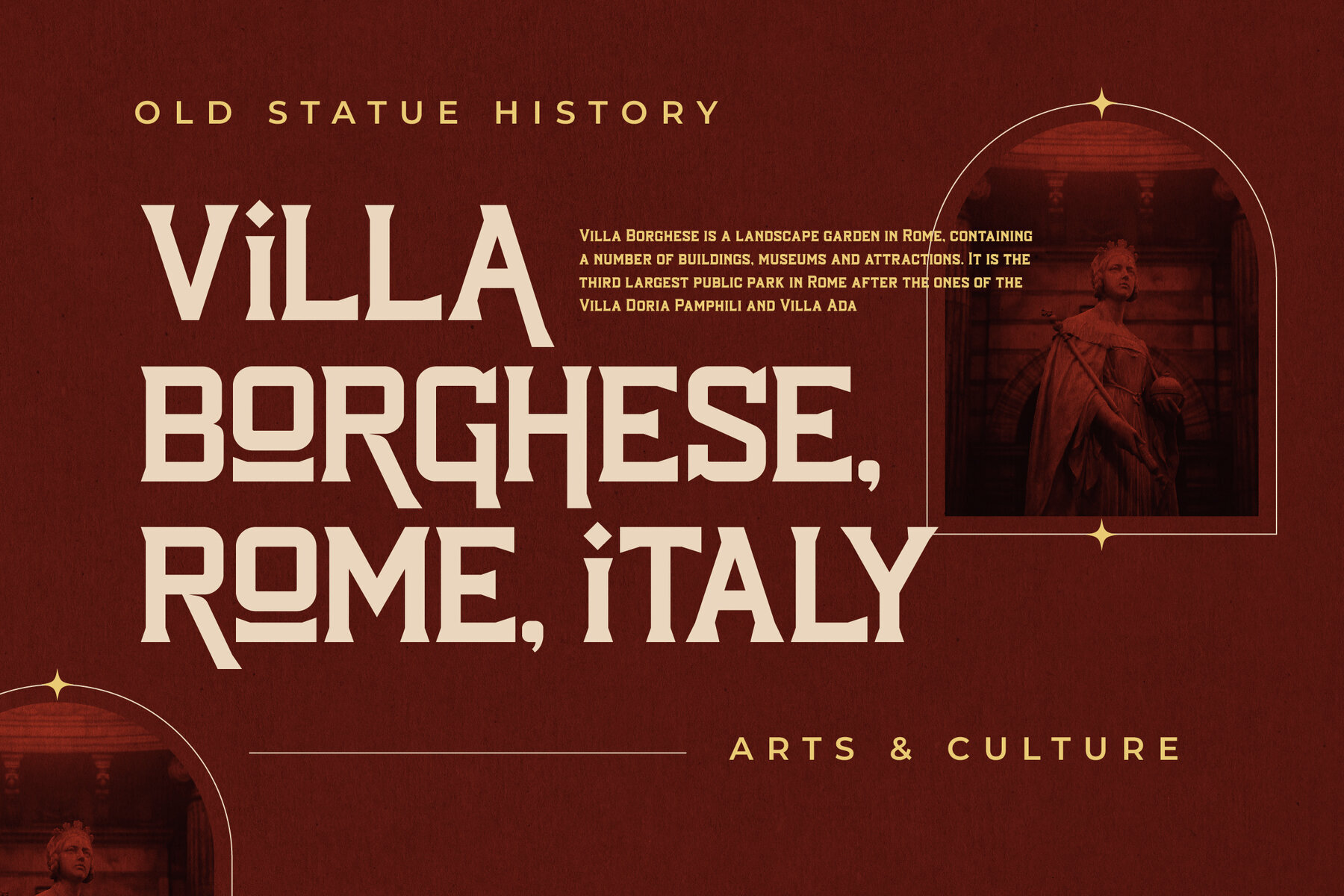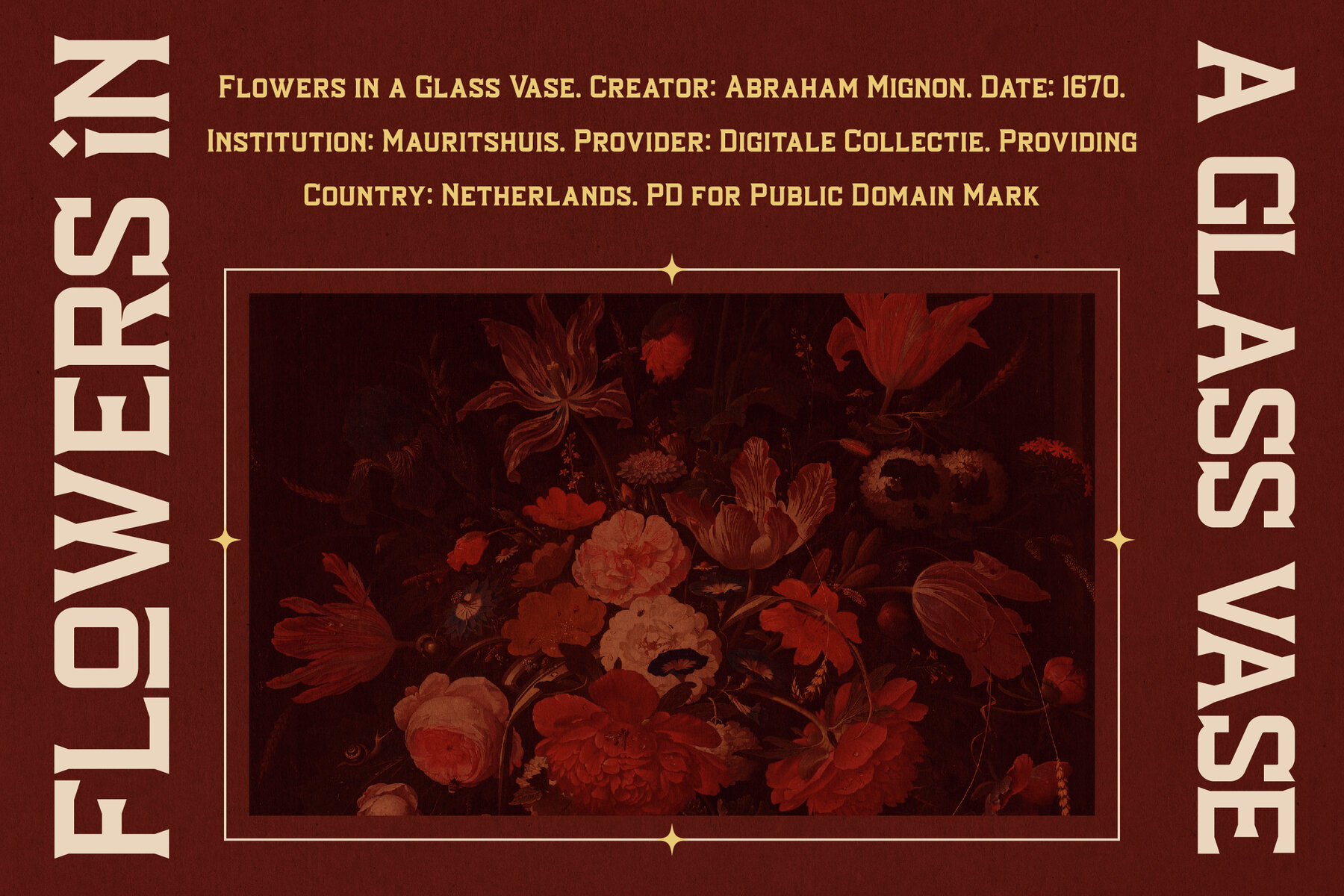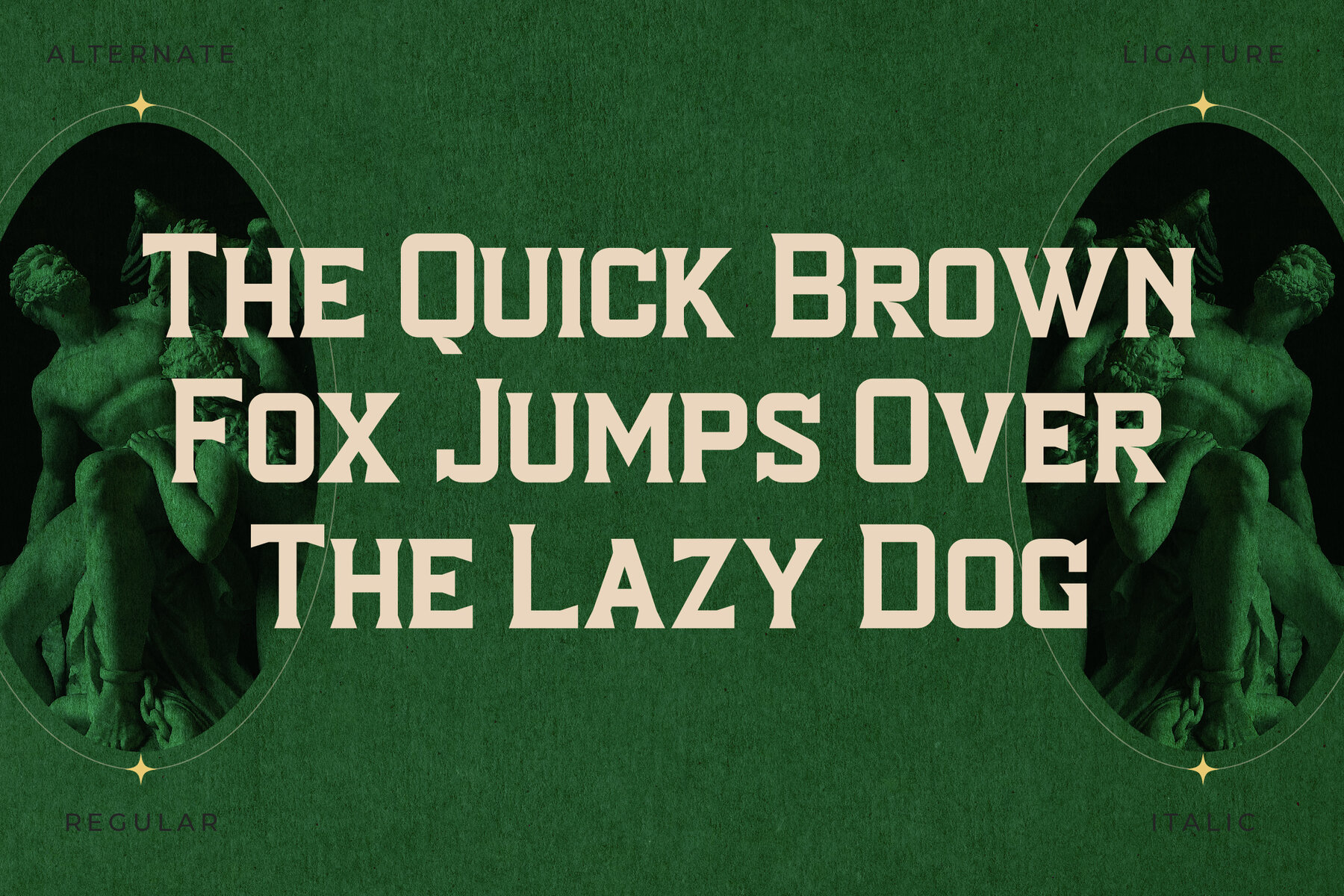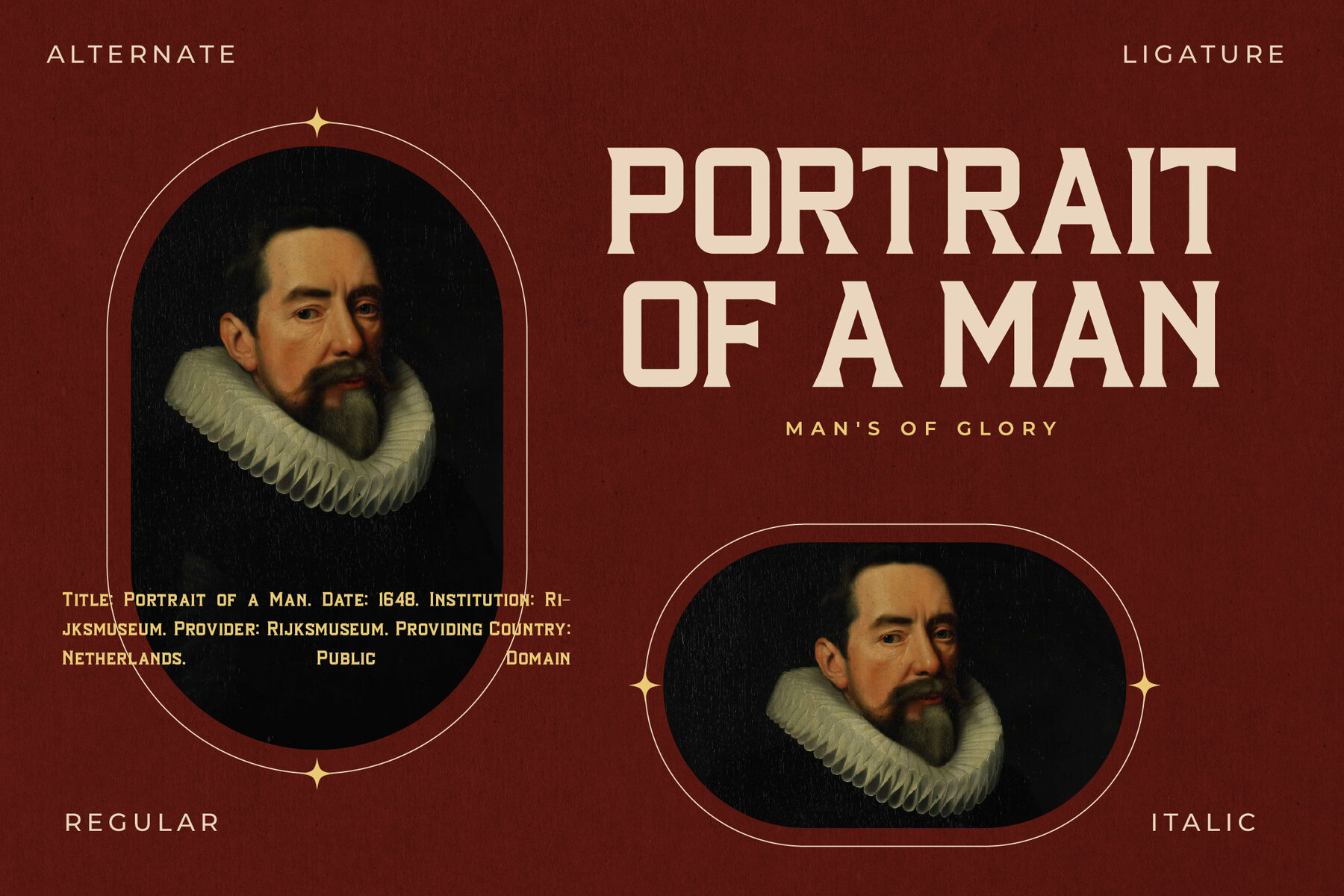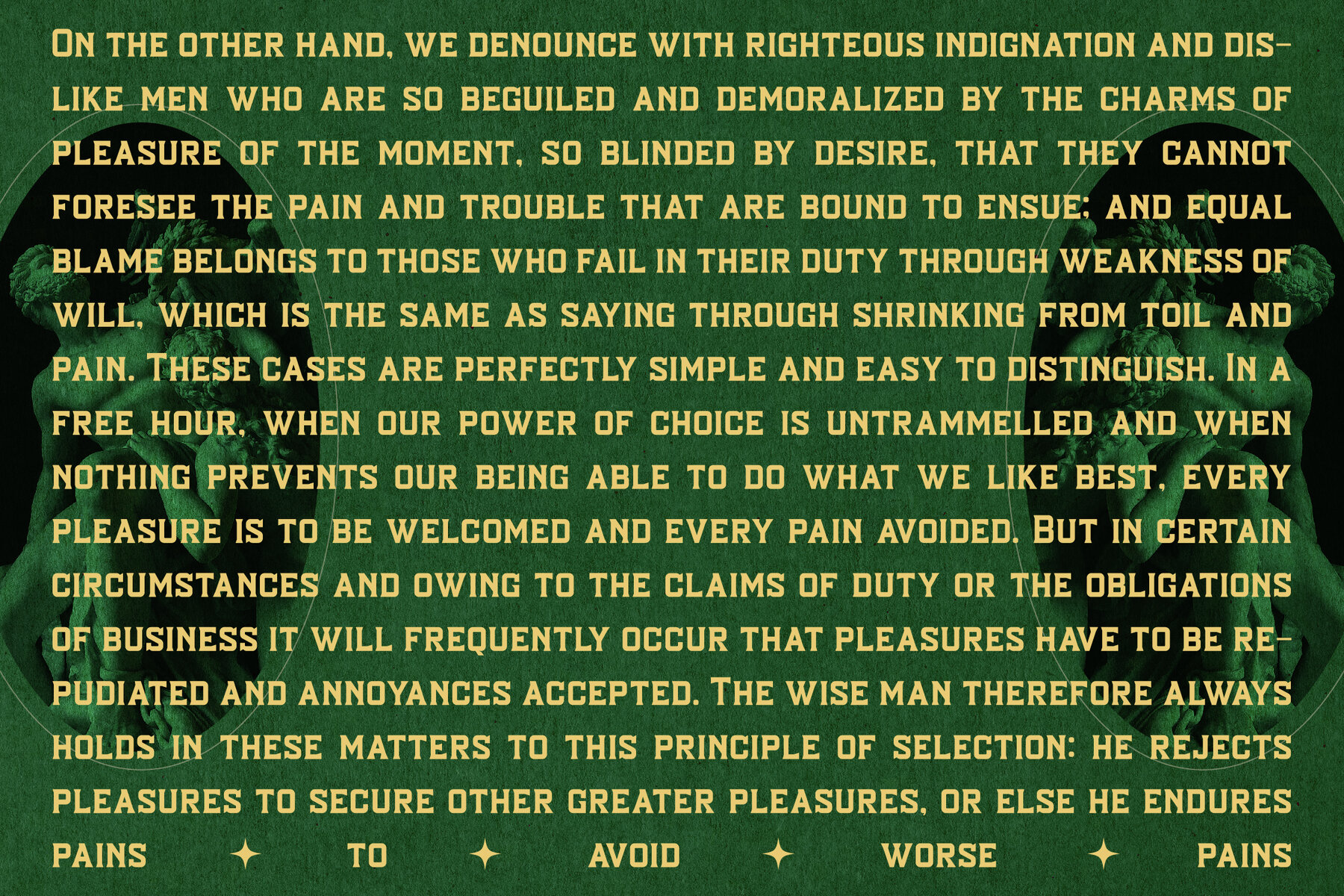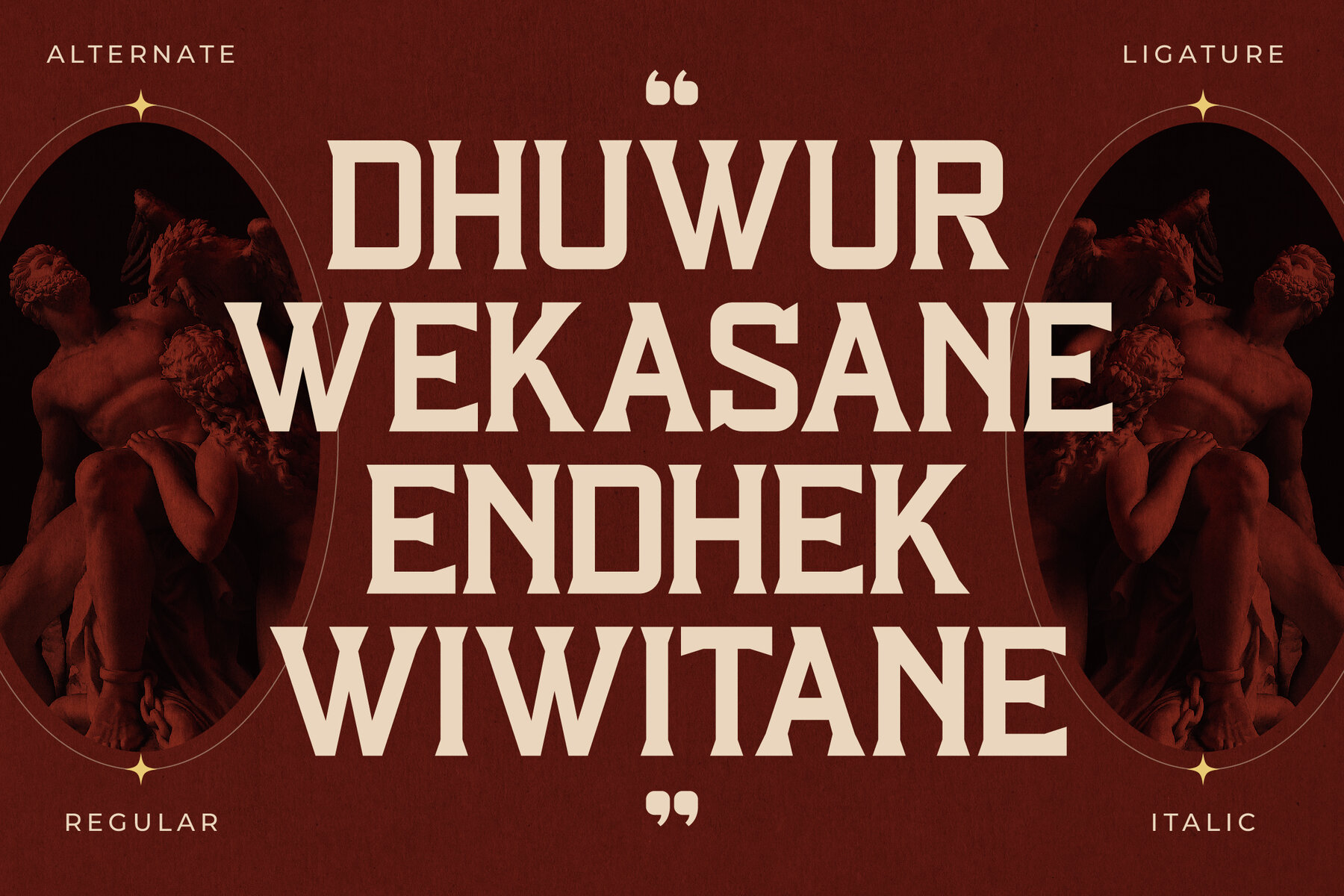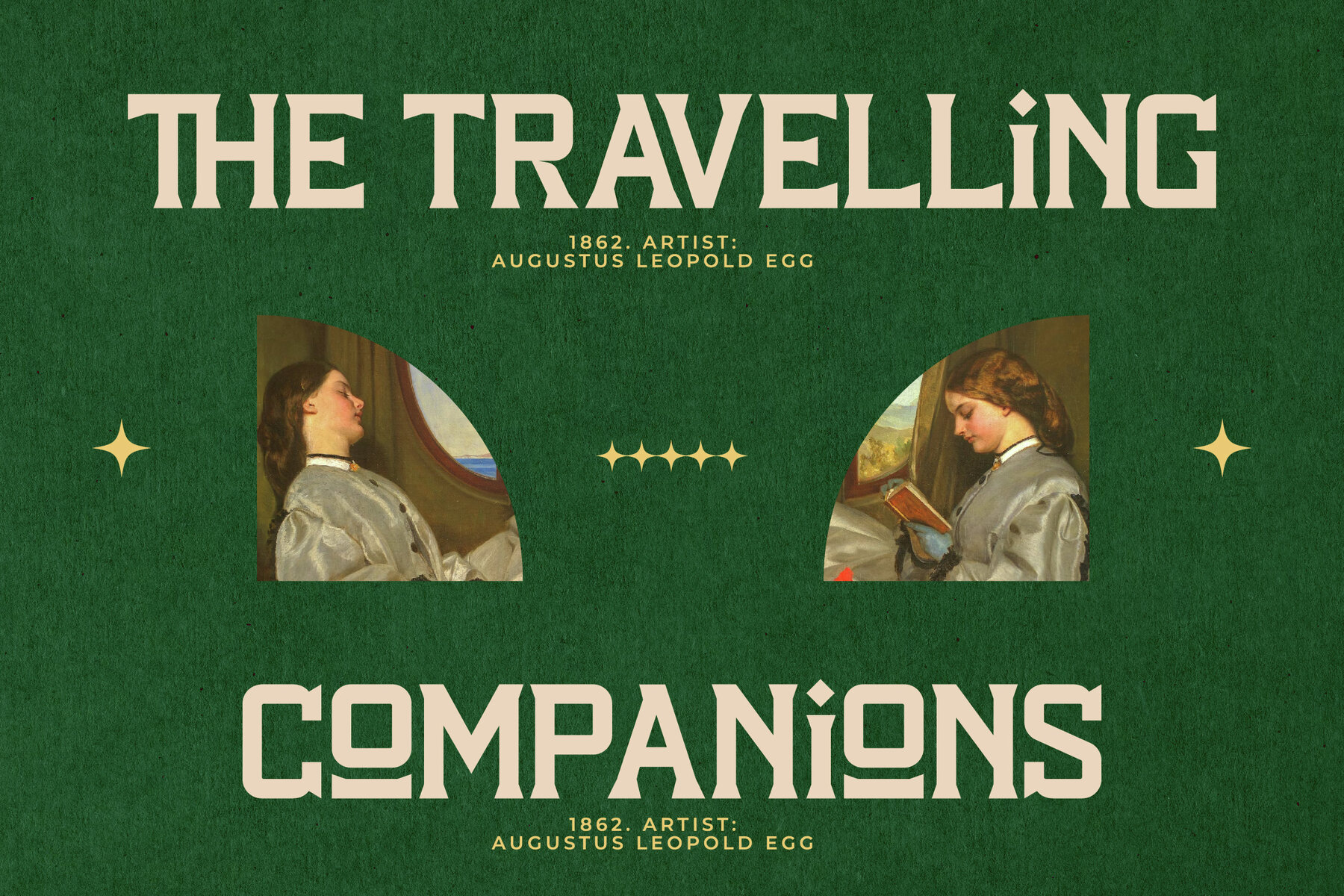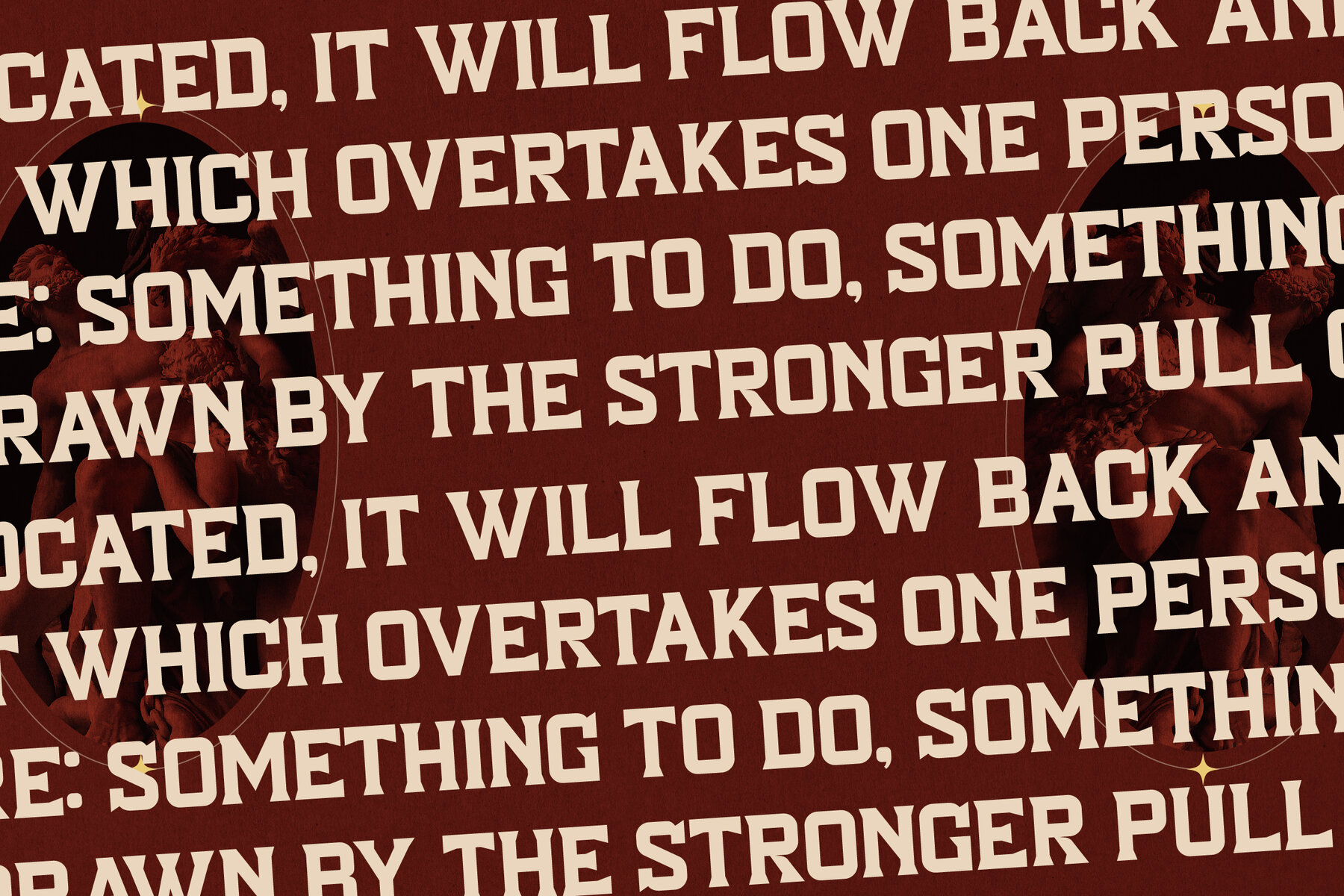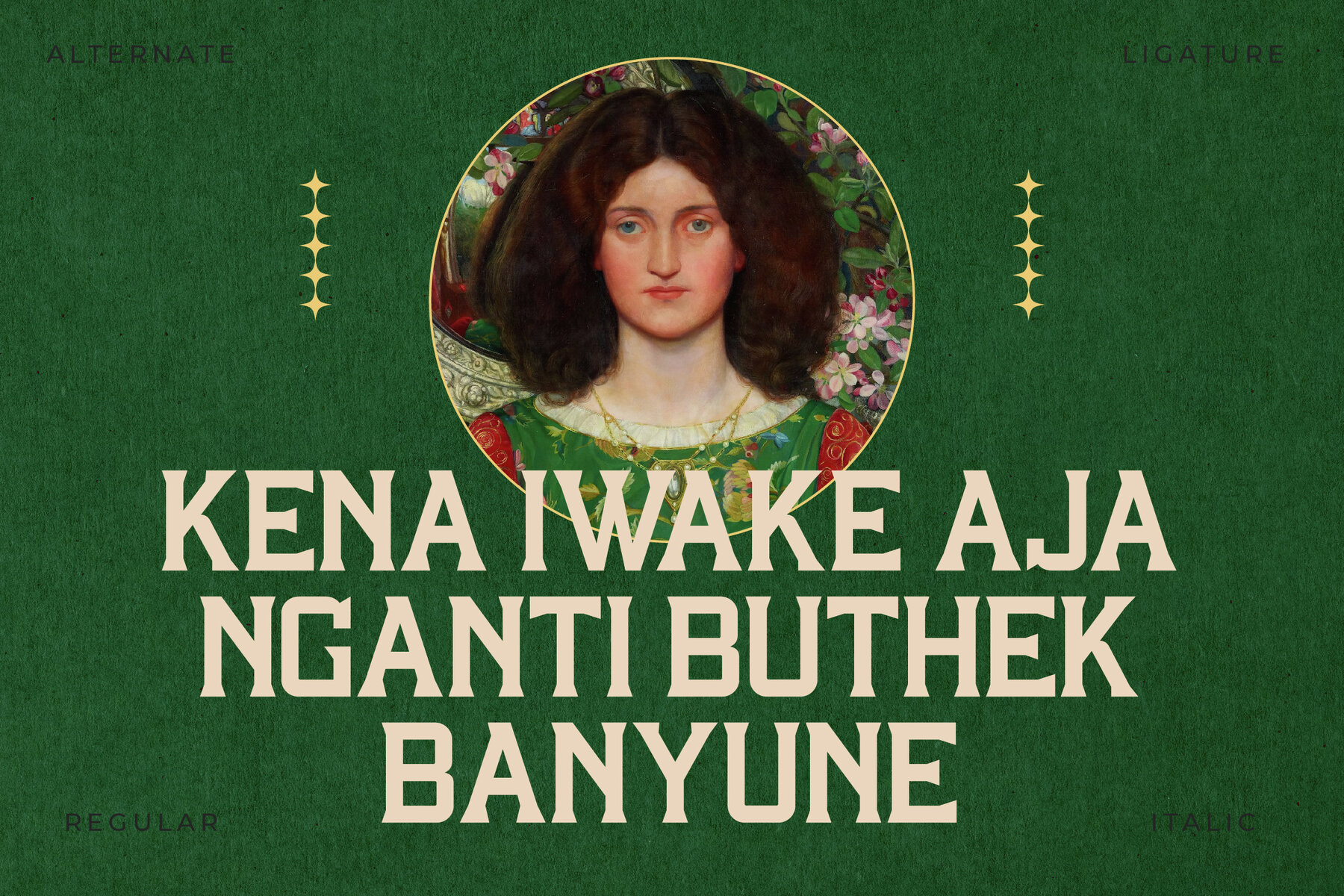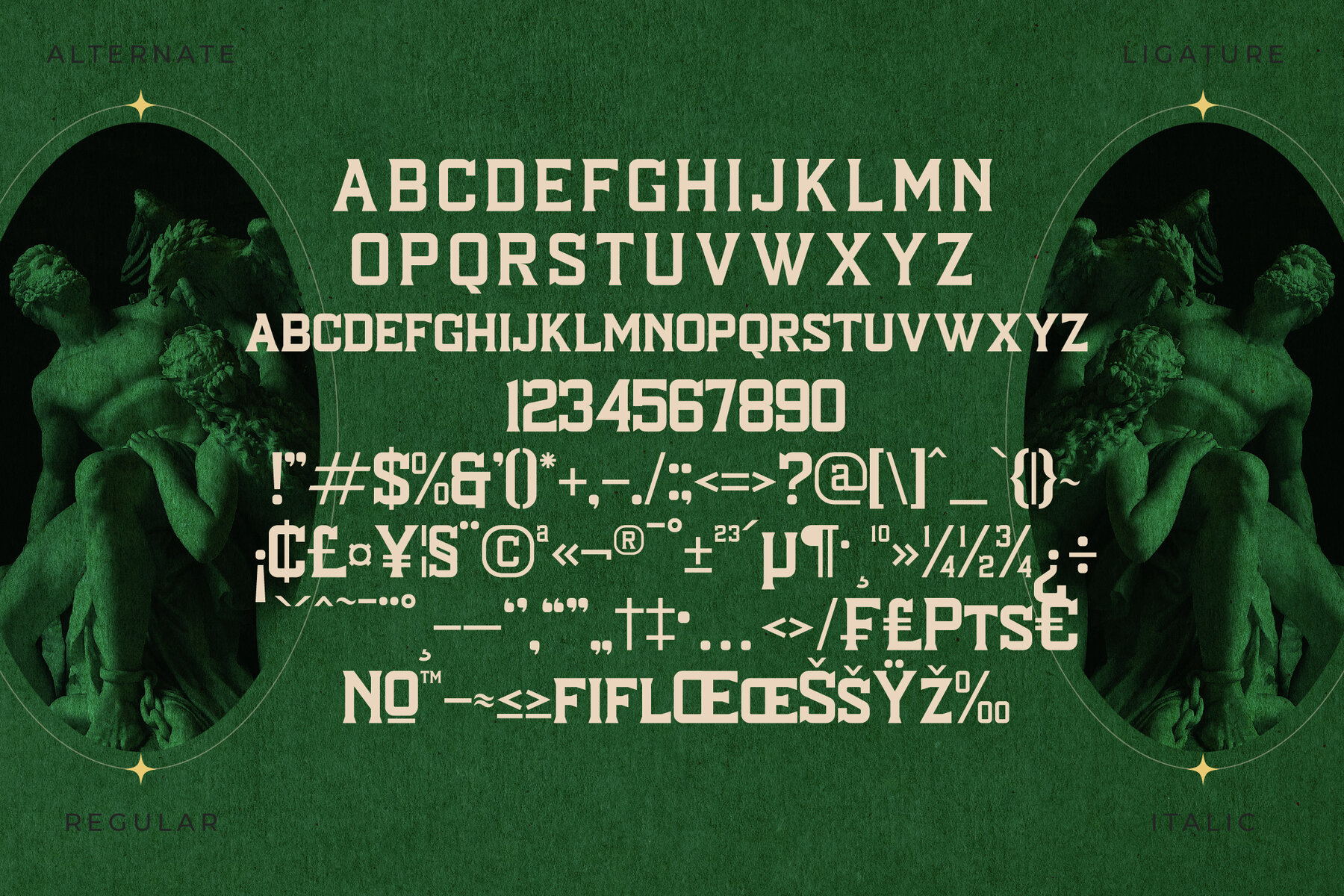
SQUIRED DIMONDS Font
The Squired Dimonds typeface by Storytype Studio encapsulates both modernity and classic elegance, providing a distinct style ideal for various design purposes. Whether you're crafting a sophisticated logo, designing a compelling book or movie title, or working on a fashion brand project, this serif typeface offers a luxury touch. It's a perfect choice for magazines, clothing designs, and inspirational quotes.Squired Dimonds Typeface: A Modern Classic
Features of Squired Dimonds